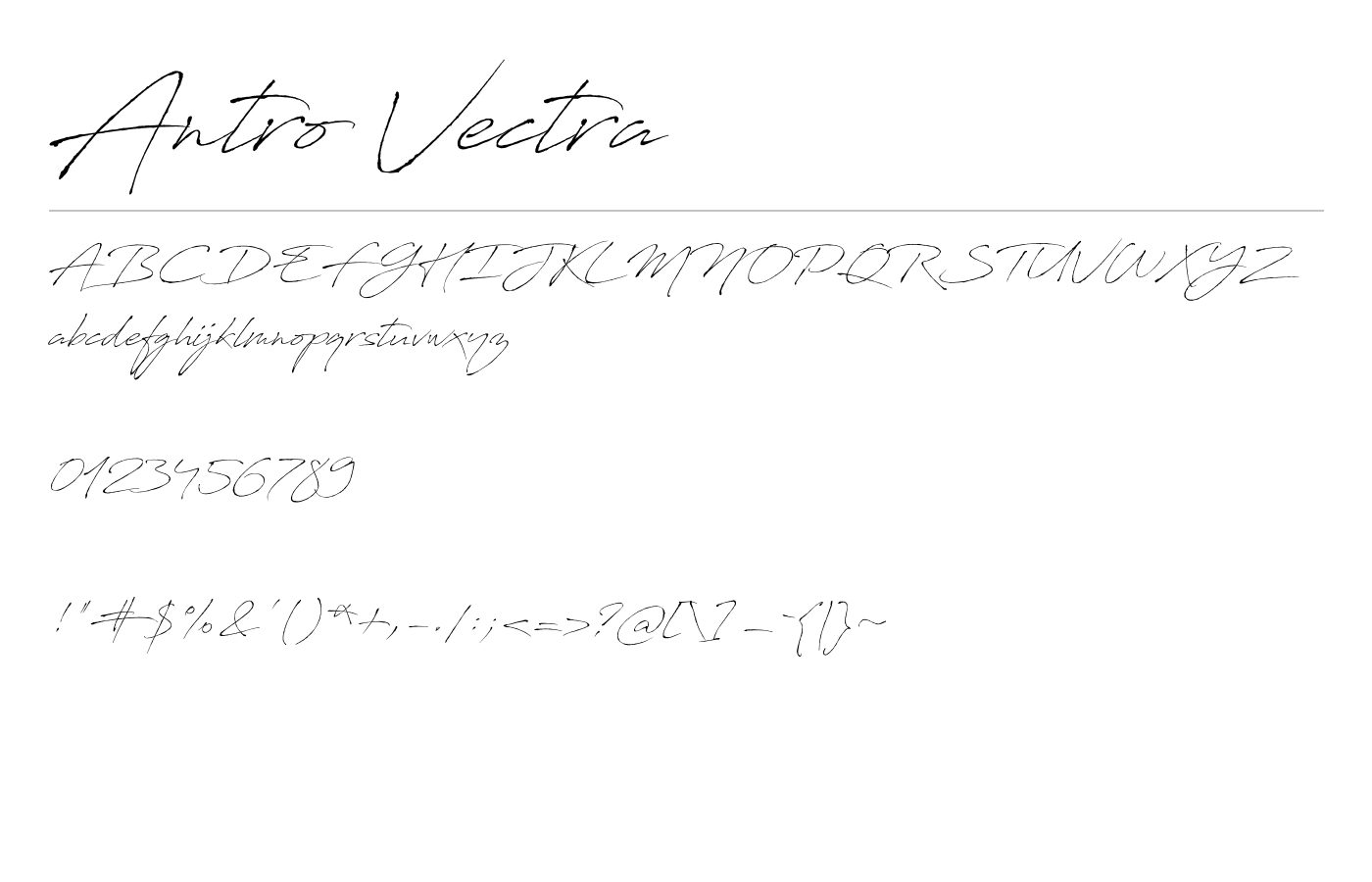
Antro Vectra is a delicate, elegant handwritten script font characterized by its thin, flowing strokes and high, airy x-height. Its fine, calligraphic lines and natural, slightly irregular letterforms give it a sophisticated and personal touch, perfect for luxury branding, invitations, or editorial design that seeks a refined yet approachable feel. This font shines best in headlines and decorative text where its graceful style can be fully appreciated.
Antro Vectra Font
About Antro Vectra Font
| Font family | Antro Vectra Font |
| Designer | Youssef Habchi |